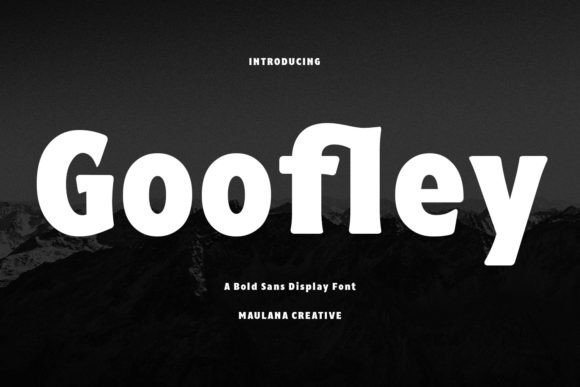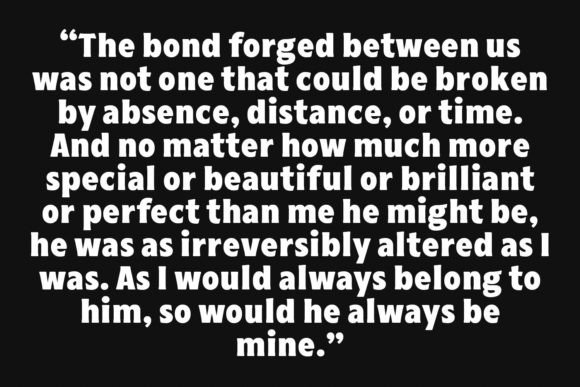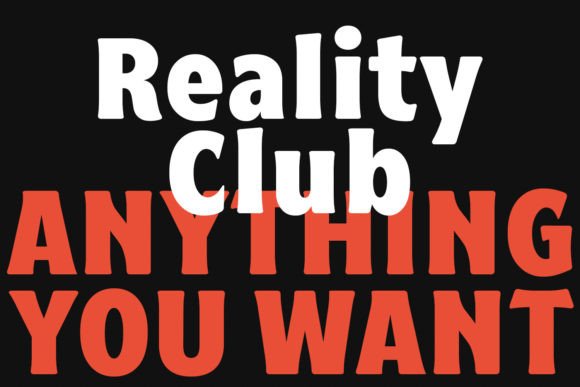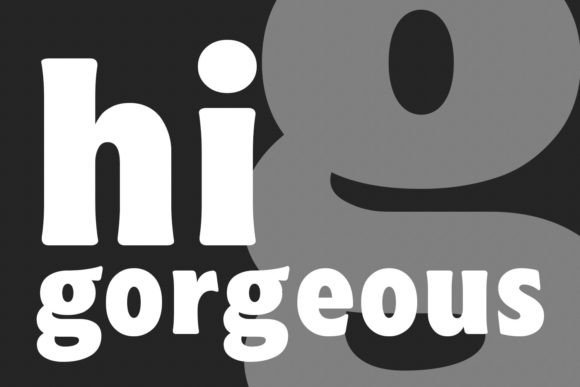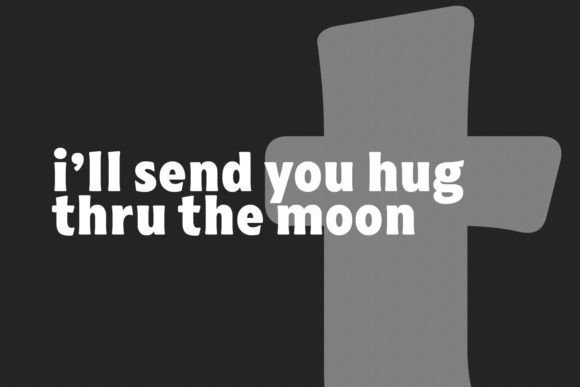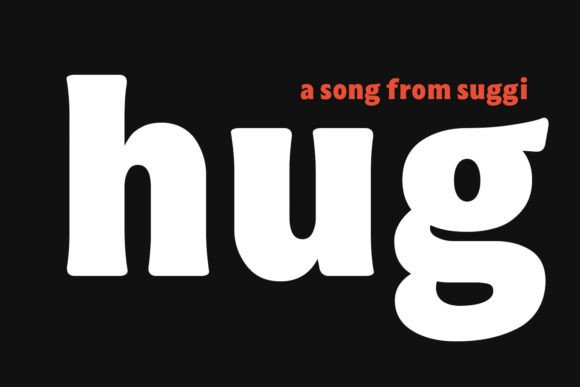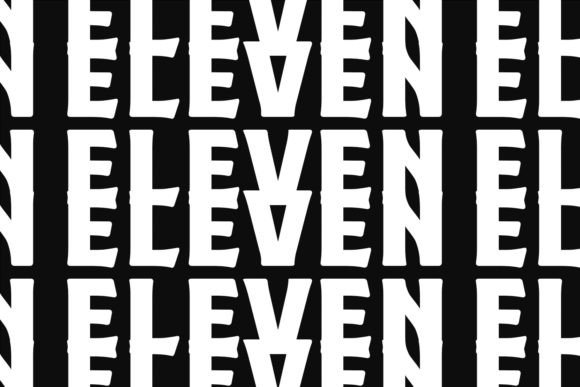
Unleash Your Creativity with the Goofley Font
Have you ever stared at a blank canvas, feeling stuck and unsure of where to begin? You’ve got a brilliant idea, but it’s just not translating onto the page. That’s where the magic of typography comes in – and the Goofley Font is here to save the day!
As a semi-serif display font with a playful touch, Goofley is perfect for designers looking to add a dash of whimsy to their work. With its medium-low contrast strokes and fun character, this font is ideal for logo design, social media graphics, movie titles, and more. What sets Goofley apart is its versatility – it’s just as stunning in short text as it is in long, making it a valuable addition to any designer’s toolkit.
Goofley Font Key Features
- Font Family: Goofley Font is a sans-serif font family with a playful twist, designed to add a touch of whimsy to digital and print media.
- Unique Characteristics: Features a distinctive, hand-drawn feel with subtle irregularities and variations in letterforms, giving it a unique, human touch.
Goofley Font Review
First off, I love the quirky vibe of the Goofley Font ✨. The playful nature of this font makes it perfect for creative projects or anything that needs a touch of whimsy. The characters are well-designed, with unique flourishes that add to the overall charm. I also appreciate the wide range of languages supported by this font, making it a great choice for international projects.
- Quirky, playful design that adds character to projects ✨
- Wide range of languages supported
- Well-designed characters with unique flourishes
However, there are some limitations to consider ⚠️. The font is not ideal for professional or formal projects, as it may come across as unprofessional. Additionally, some characters may not display correctly in certain environments, which can be frustrating. The font also lacks a bold or italic version, which may limit its usability in certain situations.
Limitsations:
- Not suitable for professional or formal projects
- Some characters may not display correctly
- Lacks bold or italic versions
Overall, I think the Goofley Font is a great choice for creative projects or anything that needs a playful touch. While it has some limitations, I believe it’s worth considering for the right project.
Tips for Getting the Most Out of Goofley Font
1. Use Goofley Font for headings and titles to add a playful touch to your design.
2. Experiment with different font sizes and styles to create visual interest.
3. Combine Goofley Font with other playful fonts or graphics to create a unique look.
Alternatives to Goofley Font
Comic Sans MS is a casual, cursive font designed to resemble handwriting. It’s often used in informal documents, children’s materials, and signage. Compared to Goofley Font, Comic Sans MS is more widely recognized and has a more consistent appearance.
Great Vibes is a modern, cursive script font that’s often used in creative and artistic projects. It’s a more elegant alternative to Goofley Font, with a more refined and sophisticated feel.
Pacifico is a beautiful, cursive script font that’s often used in travel, food, and lifestyle branding. It’s a more elegant and sophisticated alternative to Goofley Font, with a strong emphasis on elegance and sophistication.
Lobster is a fun, cursive font that’s often used in informal and creative projects. It’s a more playful alternative to Goofley Font, with a strong emphasis on whimsy and humor.